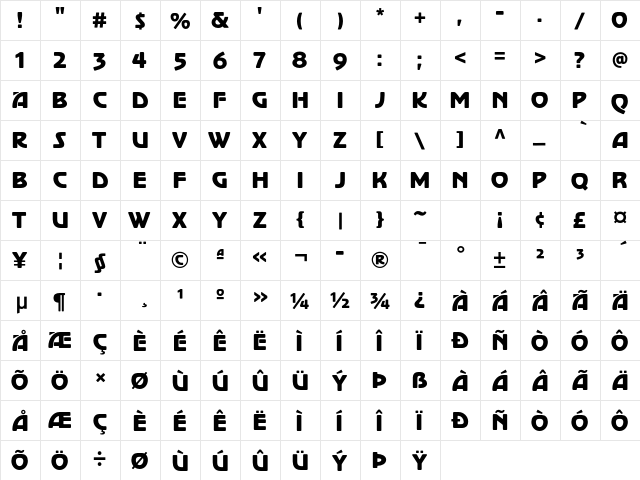
Diablo Std Regular
Design Context for Diablo Std Typeface
Diablo Std offers clean, dependable letterforms without strong stylistic allegiance, making it a practical choice for designers who need flexibility.